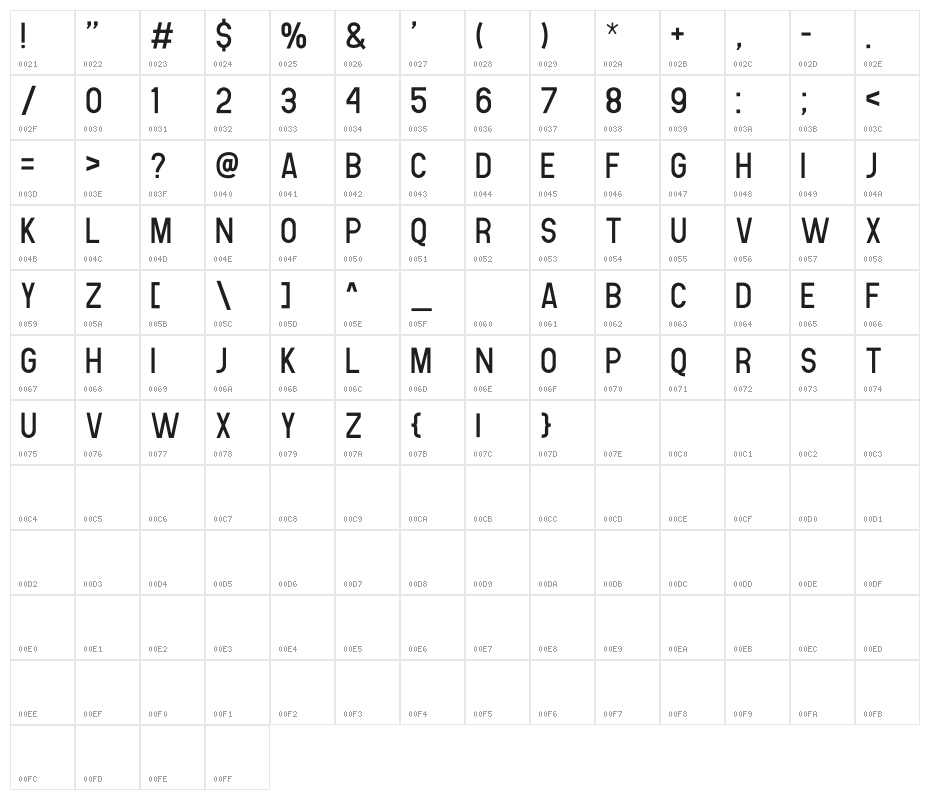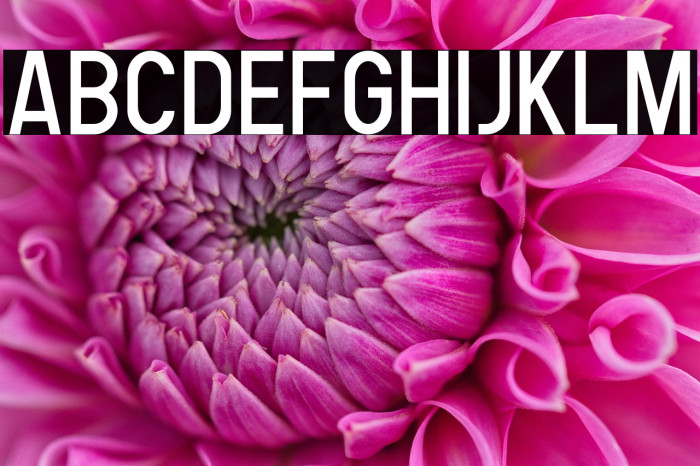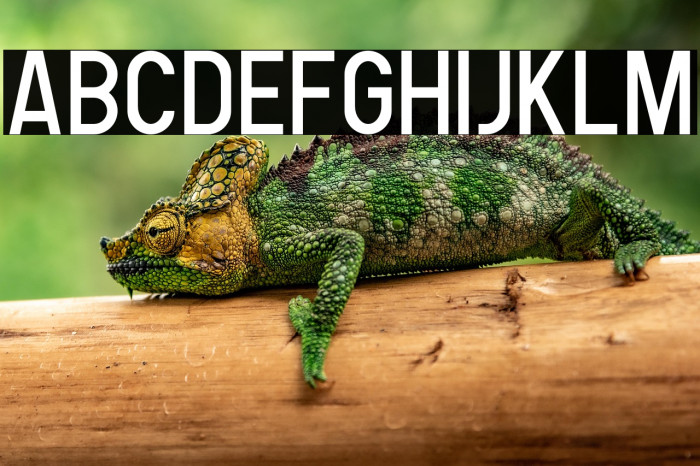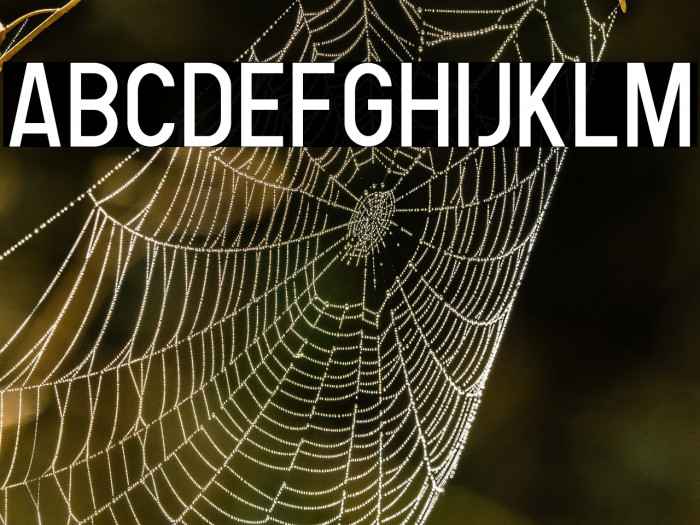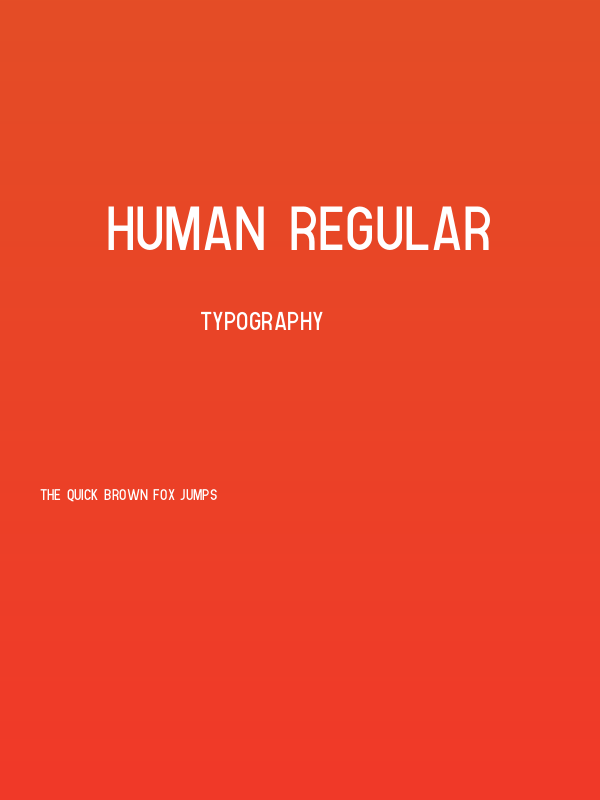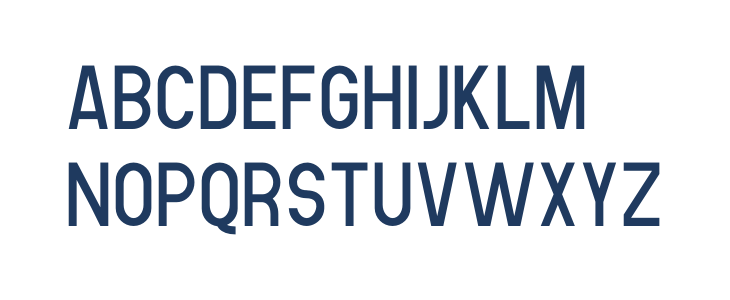
Human Regular Font
Human Regular Description
This font exhibits a clean and modern sans-serif style, characterized by its geometric and uniform letterforms. The uppercase and lowercase letters maintain a consistent height and width, contributing to a balanced and harmonious appearance. The numerals are clear and easily distinguishable, making them suitable for a variety of applications. The special characters are well-integrated, ensuring versatility in design projects. Overall, the font's simplicity and clarity make it an excellent choice for both digital and print media.
| Use Case | Headlines, Body text, Logos |
| Proposed Projects | Ideal for branding, web design, advertising, and editorial layouts due to its clarity and modern aesthetic. |